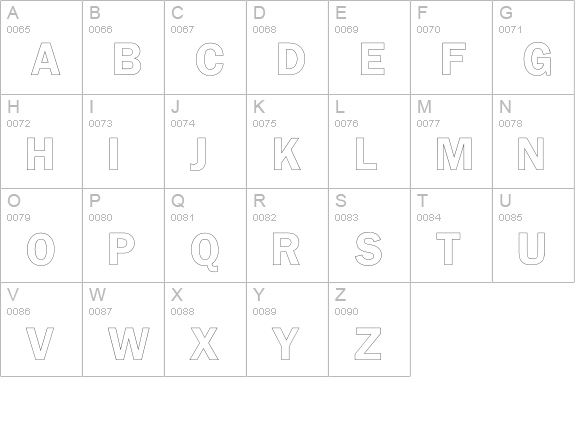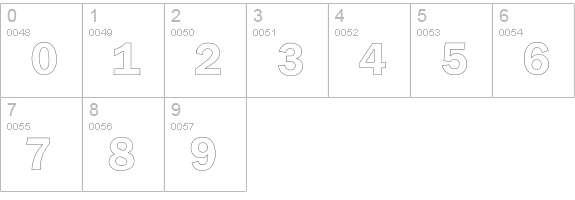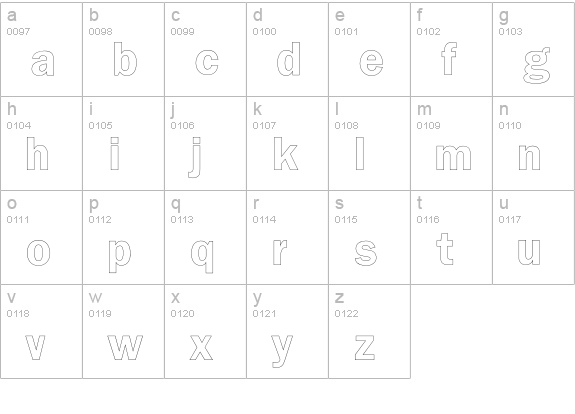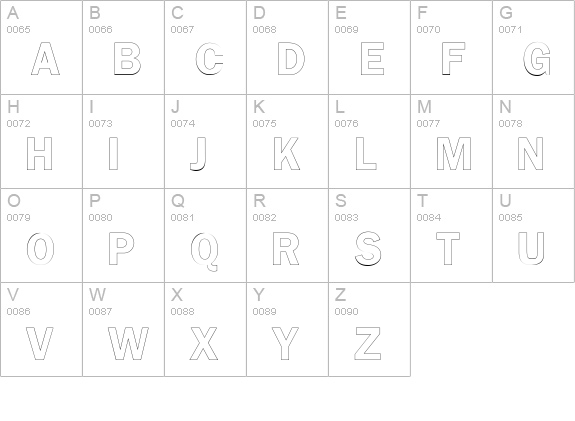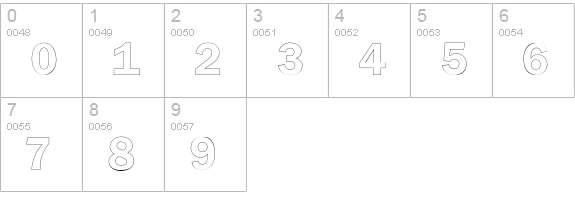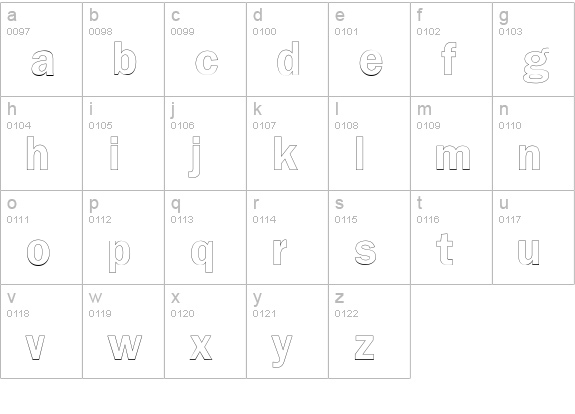
FranklinOutline Font Details
FranklinOutline font is a modern and stylish typeface that exudes sophistication and elegance. This font features clean lines and a bold outline that make it perfect for a variety of design projects. Whether you're creating posters, logos, or social media graphics, FranklinOutline font will add a touch of class to your work. The best part? FranklinOutline font is completely free to download at FontsMarket.com! This means you can easily access this versatile font and use it in your projects without any cost. Don't miss out on the opportunity to enhance your designs with the sleek and contemporary look of FranklinOutline font. Download it today and elevate your creative endeavors to the next level.